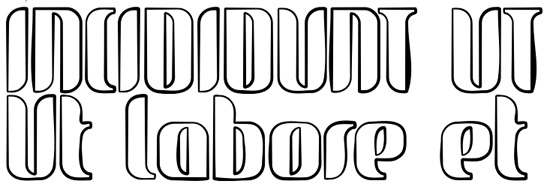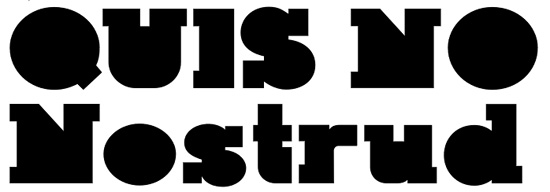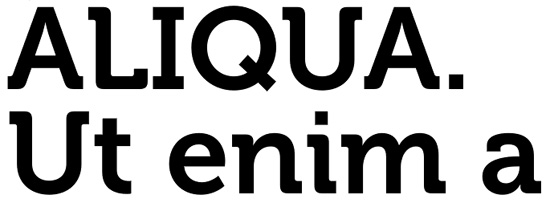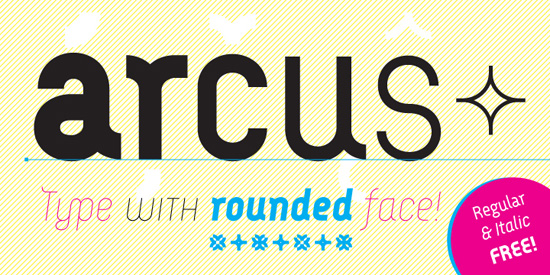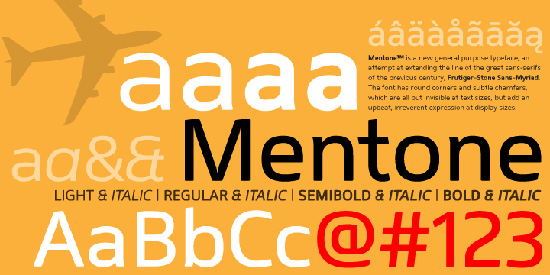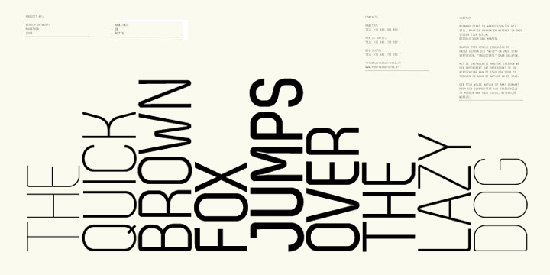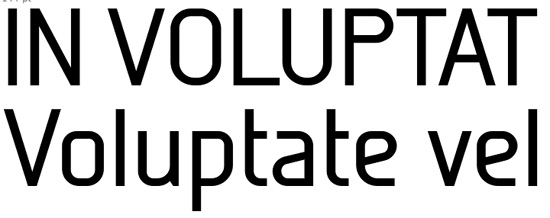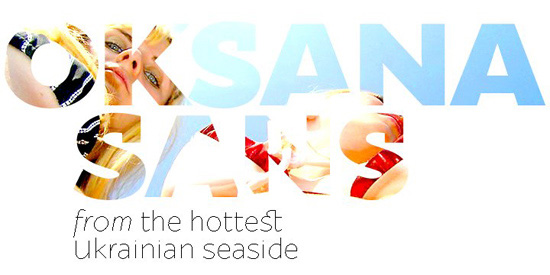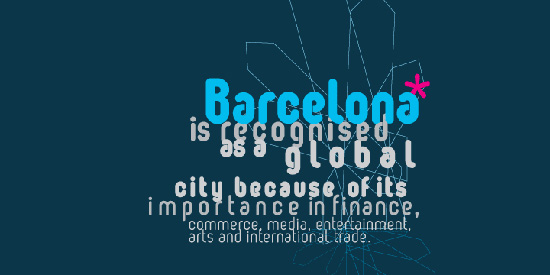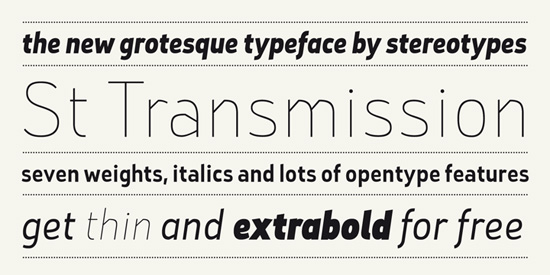
40 Free Headline Typefaces
Using strong typography will increase the quality and visual appearance of your work, after all strong typographic skills are one of the many keys to great design! This round-up presents 40 beautiful fonts suitable for typographic illustrations, headlines and sub-headers.
Don’t get me wrong, typography isn’t easy. Having a good font and a keen eye for design doesn’t make you a typography expert. It does however improve your chances! Mastering typography takes a lot of reading, a lot of viewing inspiration, and even more time to put these skills and ideas into practice.
You also need good typefaces, and unfortunately these can set you back thousands of bucks. Although spending your hard-earned cash on a new library of typefaces is well worth it and helps to support the design community, if you’re just starting out it isn’t recommended. Thankfully, there are a bunch of great typographers in the world who brainstorm, design and then create some superb typefaces and fonts purposely to release on the internet free of charge.
Glidesketch
Glidesketch is an elegant font with rounded corners, and is great for logos, posters, motion graphics and t-shirts. The name is inspired by the sleek curves and its smooth look. Glidesketch is a free sub-font of Glide which will set you back $35 USD.
Kaine Block
Kaine Block is a part of the Kaine font family, and is a free bold slab-serif typeface influenced by Spaghetti Western posters of the 1960′s. Other typefaces from the font family are Kaine, Kaine Italic, Kaine Stencil and Kaine Outline, all costing $19 USD each.
Museo Slab 500
The Museo Slab font family is a robust slab-serif font with Museo‘s friendliness. Museo Slab 500 is one of the free fonts, whereas other weights of the font will decrease the bank balance by $16.50 USD each. Museo Slab 500 Italic is also free.
Museo 700
Museo is the mother font of Museo Slab (mentioned above). The whole font family consists of five different weights. Museo 100 and Museo 900 will set you back $16.50 each, however Museo 300, 500 and 700 are all free.
Arcus Regular
Arcus Regular is part of the Arcus typeface, featuring a whopping 12 fonts. It is a geometrically constructed and very round font. Every font will cost you a small $14.50 each, with the exception of Arcus Regular and Arcus Italic, which are completely free.
Mentone Semi Bold
Mentone is a new general purpose typeface and an attempt at extending the line of the great sans-serif fonts of the previous century, such as Frutiger, Stone Sans and Myriad. The font family holds 8 beautiful styles of the typeface, setting you back a mere $90 USD for the whole family. Mentone Semi Bold however is free of charge.
Zag Bold
Zag is a custom sans font which is applicable for any type of graphic design, whether it be the web, print, or motion graphics. Each font will cost you $19 USD with the exception of Zag Regular and Bold, which are free.
Galette Medium
Galette is a contemporary all-purpose sans-serif font for both print and on-screen media. Galette Medium is free of charge, as well as Galette Medium Oblique. If you’re looking for something a bit lighter, Galette Light will cost you a nearly non-existant $12 USD.
Oksana Sans Fat
Oksana Sans is a gothic sister of the Oksana Text typeface. The font family consists of extremely thin fonts to extremely thick fonts. The thickest, Oksana Sans Fat, is completely free.
Oval Single
Oval is a lovely attractive sans font, perfect for graphic design, both on-screen and off. The font family consists of a huge 13 different typefaces, with the most-used one, Oval Single, being completely free.
St Transmission-200 Thin
St Transmission is a gorgeous typeface as you can clearly see from the image above, being perfect for vintage-style design and almost everything else! It can easily be used as a body font, but is just as suitable for headlines. The whole font family would cost you $149, but thankfully 200 Thin is free, as well as 800 Extra Bold.
Mr Jones Book
Mr Jones is a font family that was produced specifically for headline use, and has since been reworked to be used as body fonts. The family consists of 14 fonts, setting you back $229 USD if you want to go for all of them. Mr Jones Book is one of the few free fonts, and is suitable for headers and paragraph text.
JLS Overkill Grunge
JLS Overkill is a ridiculously strong and bold typeface, and the whole family consists of 13 font, costing $14.99 USD each. The grunge version, JLS Overkill Grunge, is free for personal use, but does cost $14.99 USD for commercial use.